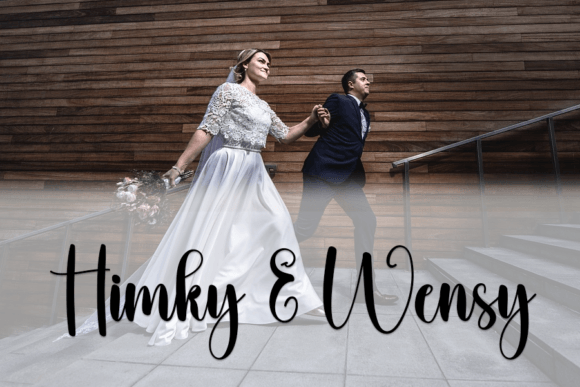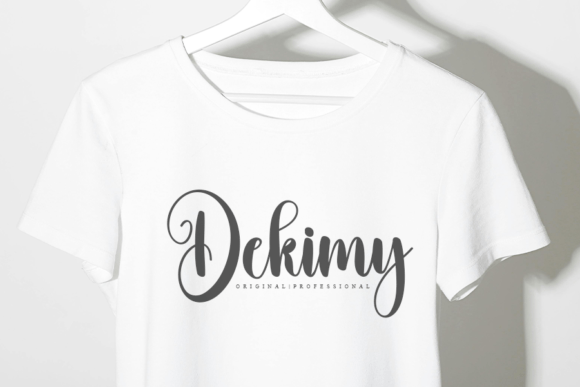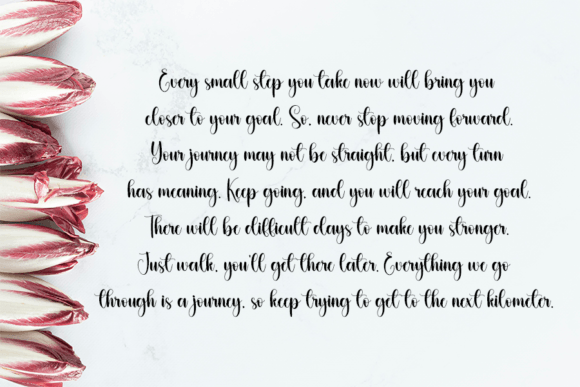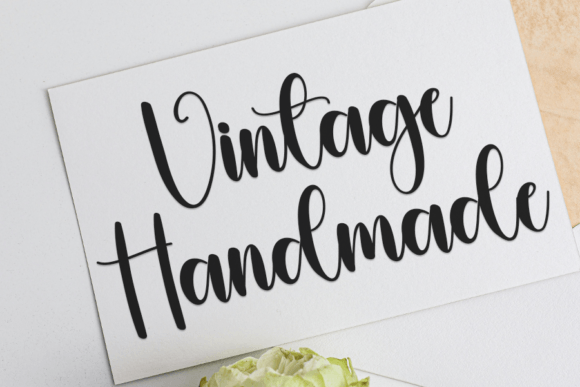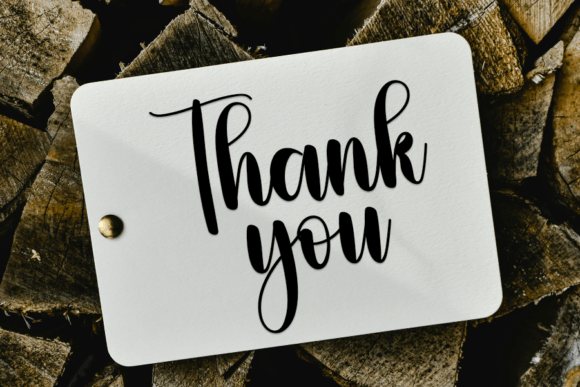
The Magical World of Disney Font: A Designer’s Delight
I’ll never forget the time I was working on a project for a children’s party invitation. I had the design concept nailed, but I was struggling to find the perfect font to match the whimsical theme. That’s when I stumbled upon the Disney font, and it was love at first sight! ✨ The delicate handwritten style instantly transported me to a world of fantasy and wonder. In this article, I’ll share my experience with the Disney font, its features, and how to make the most of it in your designs.
An Honest Review of Disney Font
- ✨ Unique and distinctive handwritten style that’s perfect for creative projects
- 💕 Emotive and playful, adding a touch of personality to any design
- 🎨 Versatile and can be used for a wide range of applications, from invitations to titles and more
While the Disney font is a stunning addition to any design, there are a few things to keep in mind: 🤔
- ⚠️ Some characters may not work well in all contexts, such as all-caps headings or very small text
- ⚠️ Limited availability of stylistic alternates, which may limit its use in certain design scenarios
The Story Behind Disney Font
The Disney font was carefully crafted by a team of designers who wanted to create a unique and imaginative font that would capture the magic of the Disney brand. Inspired by classic Disney movies and theme park attractions, the font is designed to evoke a sense of wonder and enchantment. 🌟
Q: What is the Disney font?
A: The Disney font is a delicate handwritten font carefully crafted for a cool and unique design.
Q: What can I use the Disney font for?
A: You can use the Disney font for a wide range of applications, including letters, invitations, food products, titles, and more.
Q: Is the Disney font easy to read?
A: Yes, the Disney font is highly legible, even at small font sizes.